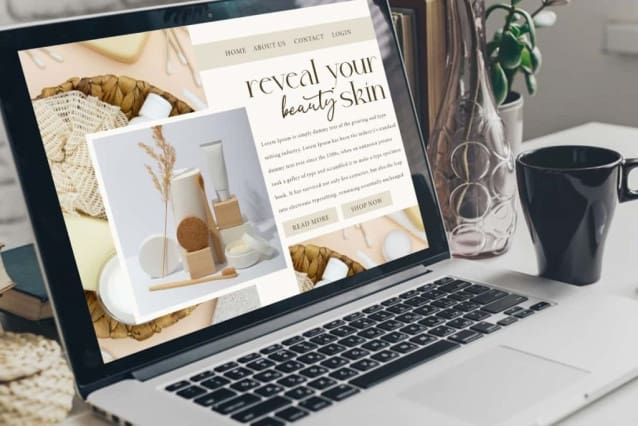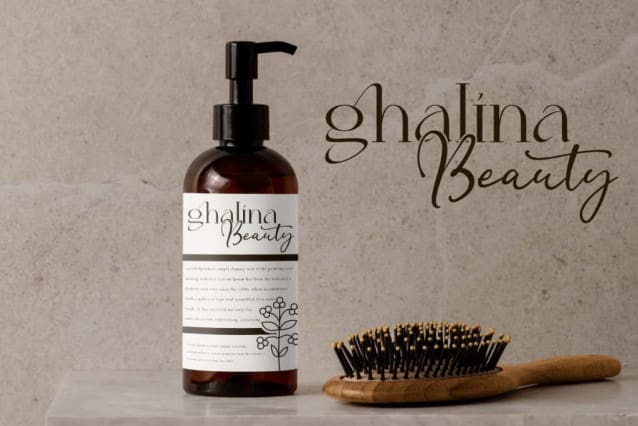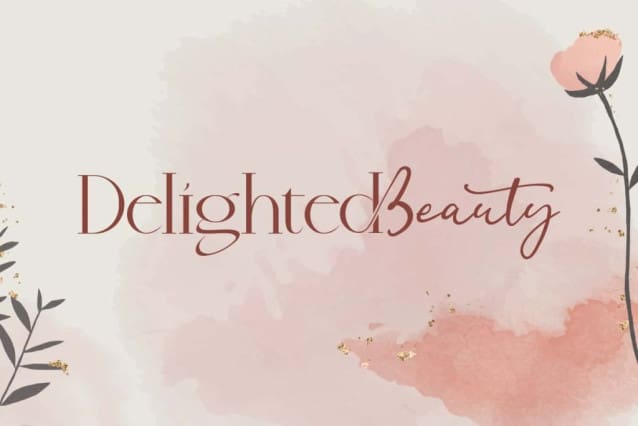
Delighted Beauty Font
Delighted Beauty Font is a stylish sophisticated display font made with two different styles. You can see it looks like a duo font, but actually the core font is a basic form of sophisticated light serif with the addition of alternative characters complete with upper and lower case letters in an elegant style. It’s all handmade and charming, isn’t it? This is perfect for billboard, card designs, packaging designs, product labels, watermarks, websites, etc.
Delighted Beauty Font has a classy and timeless look it is designed perfectly for each other, not only is it a strong standalone font, but it also pairs beautifully. This is a great choice for apparel, cosmetic, fashion, florist, skincare, spa salon, and others. The font contains a complete set of basic Uppercase and Lowercase characters, Numbers, Symbols and Punctuation marks. Also Ligature and Alternate which support font aesthetics.